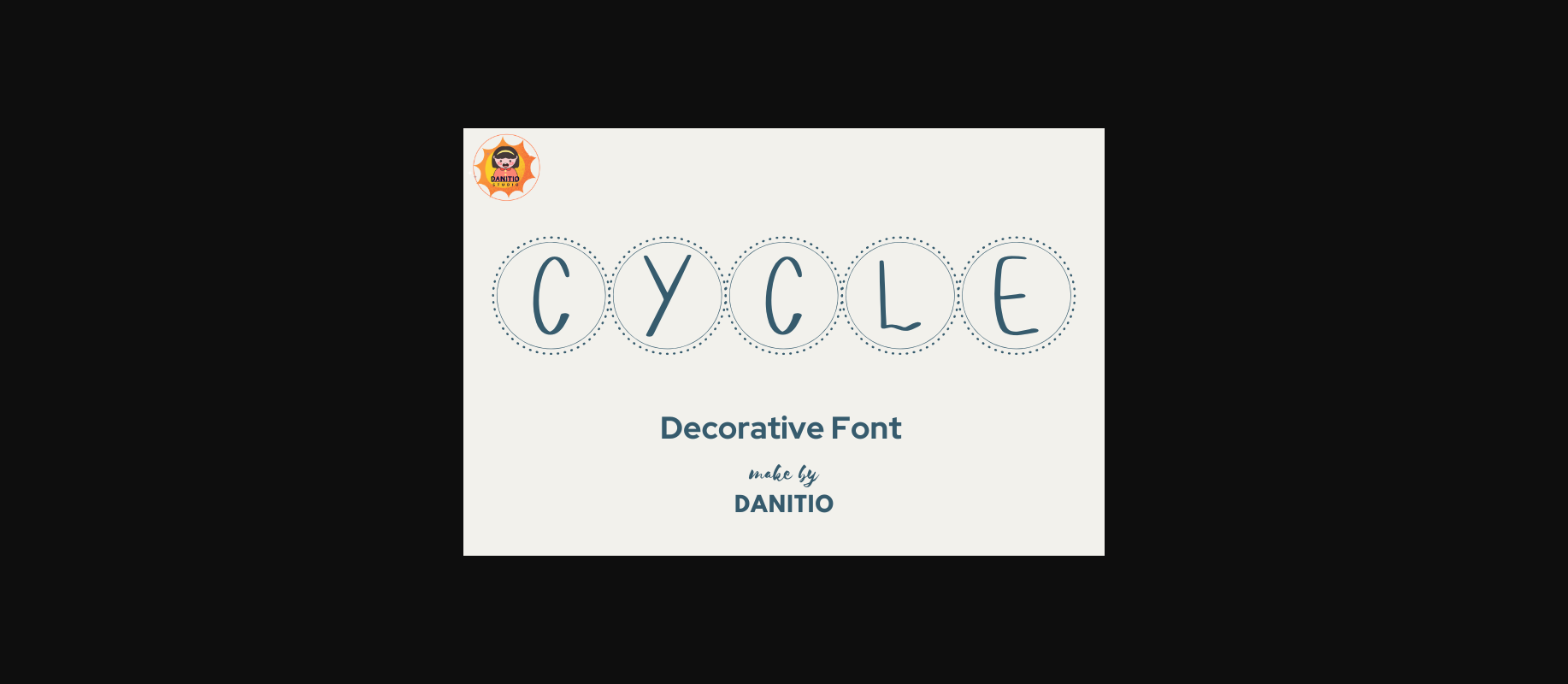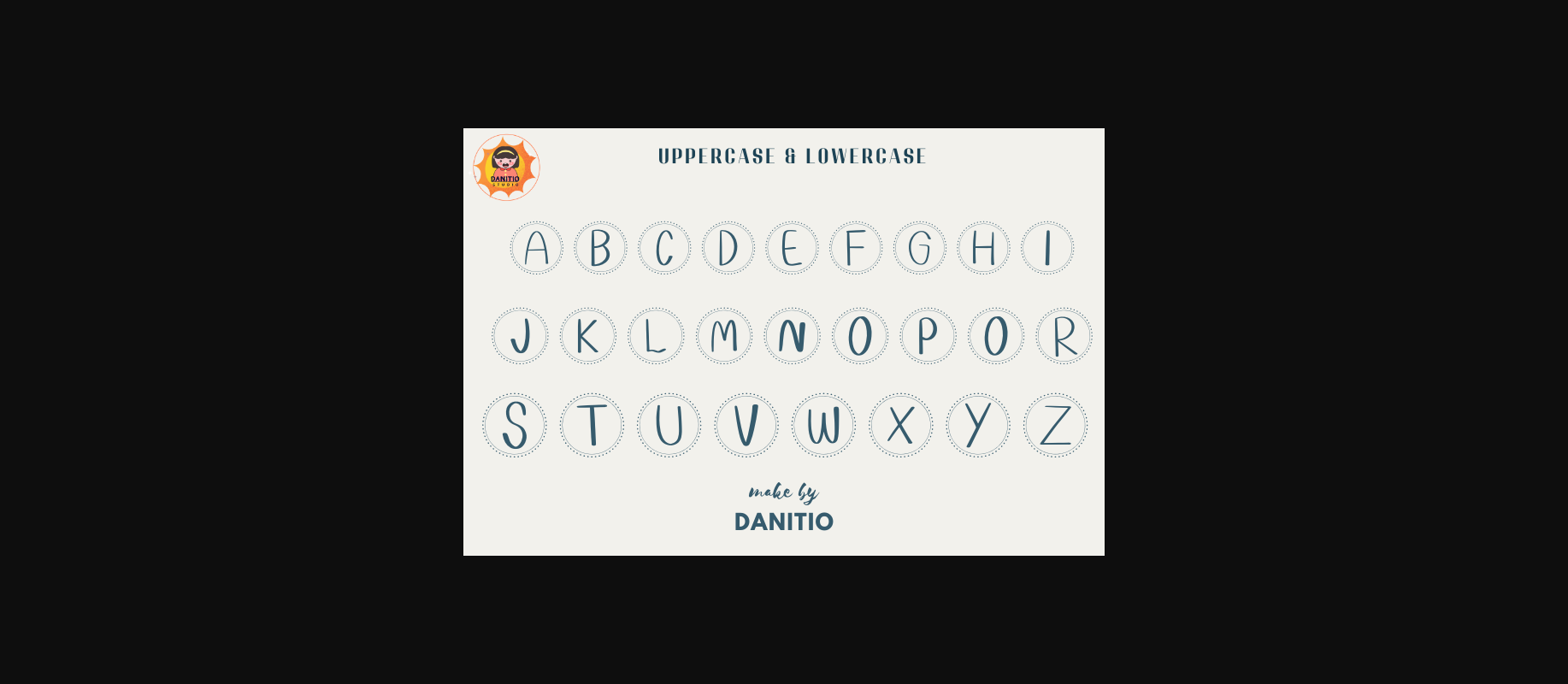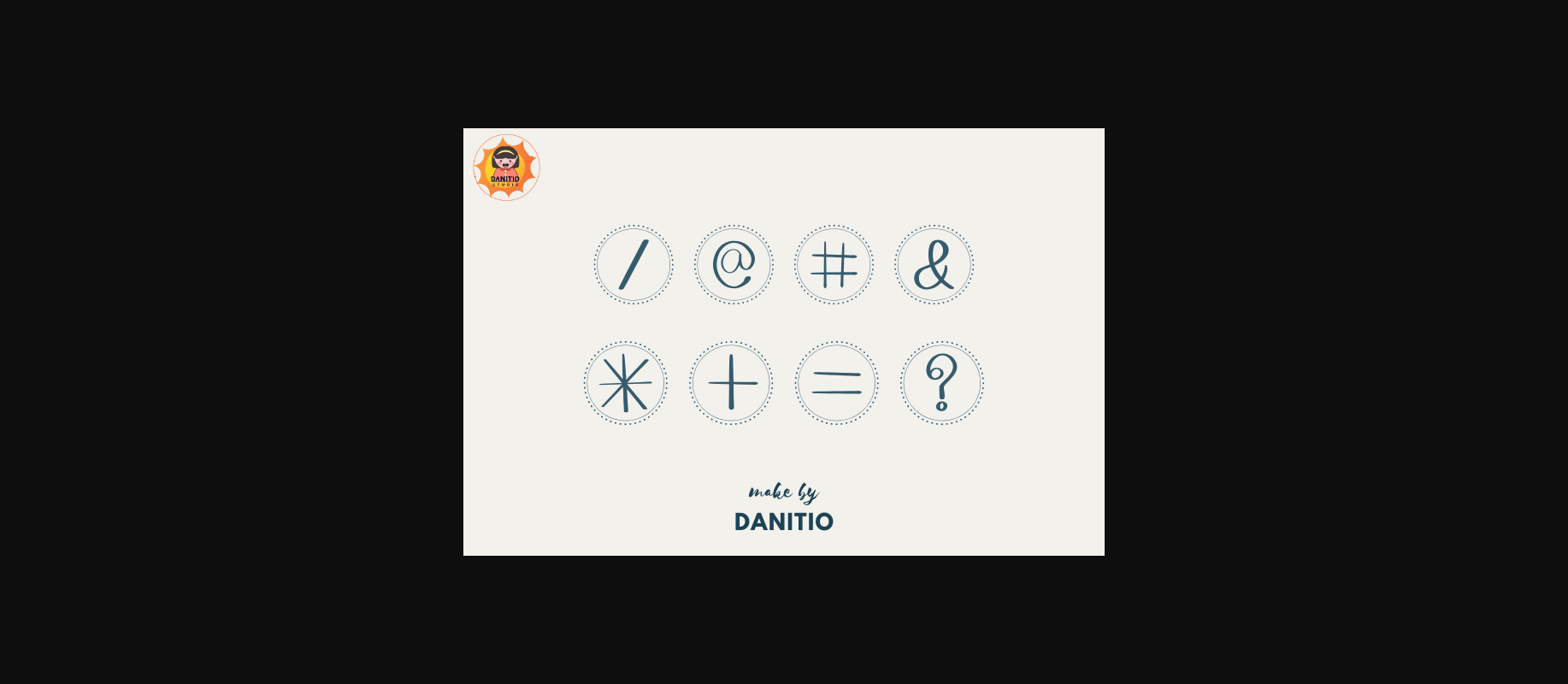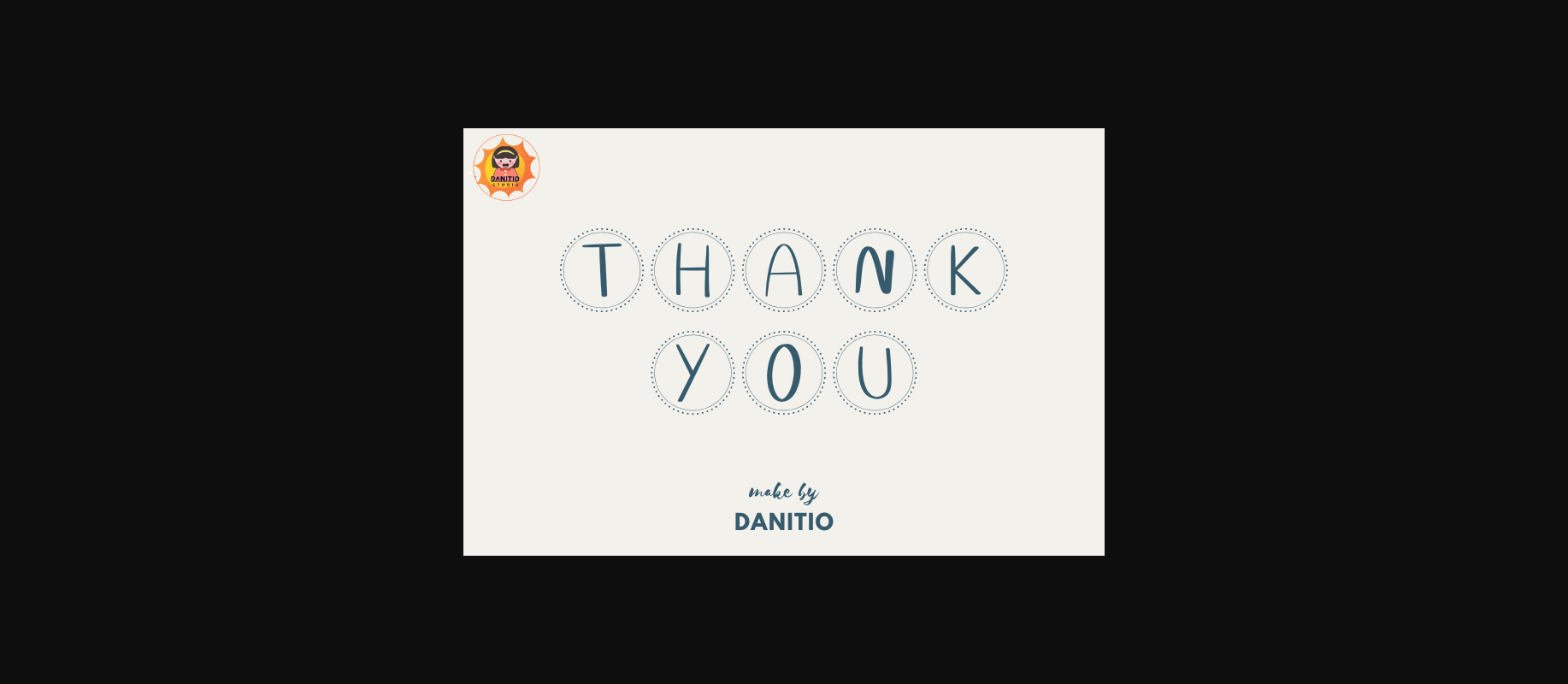
Cycle Font
About Cycle Font
The Cycle is a decorative font with characteristics of a circle surrounding the letter. Whether you use it for craft digital designs, presentations or greeting cards, this font has the potential to become your favourite font for any occasion!